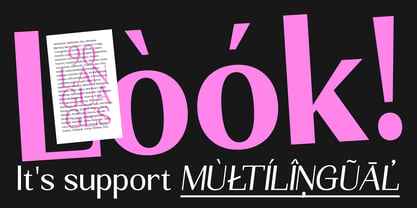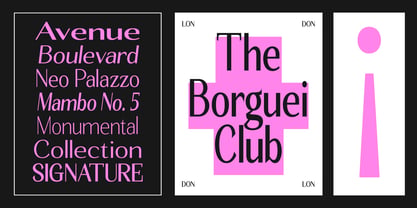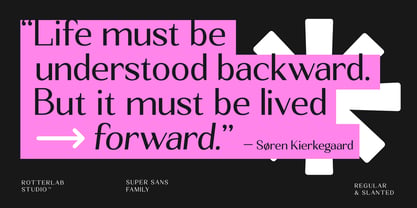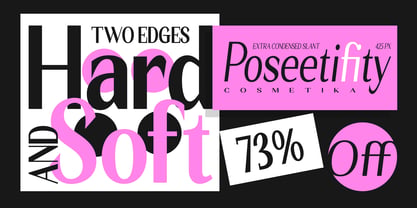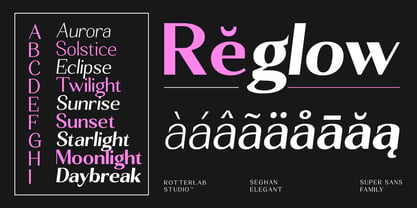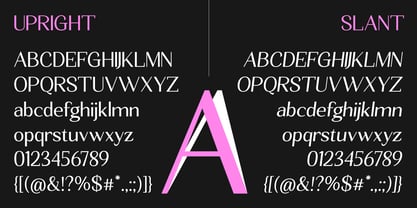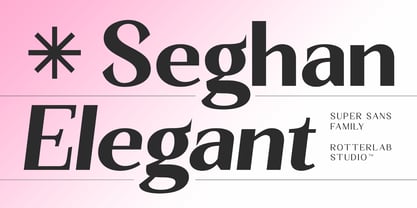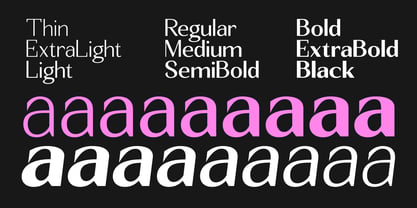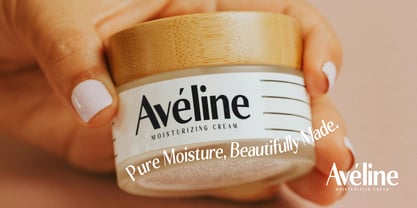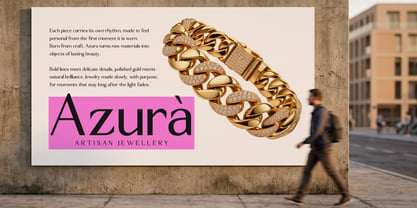
Seghan Elegant
The Seghan Elegant Font Family was designed by Sidiq Fahmi and published by Rotterlab Studio. Seghan Elegant contains 252 styles and family package options. More about this family
Seghan Elegant is a sophisticated and stylish serif font designed to bring a luxurious and distinctive touch to your creative projects. Featuring high-contrast strokes, graceful curves, and unique letterforms, this font combines classic elegance with a modern fashion-forward feel.
Perfect for logos, branding, fashion magazines, editorial designs, invitations, beauty products, packaging, posters, social media, and headlines. Its bold yet elegant appearance makes it highly versatile for both minimalist and statement designs.
Whether you are creating a premium brand identity, an elegant wedding invitation, or a striking editorial layout, Seghan Elegant adds a refined and memorable character to every design. It is an excellent choice for designers looking for a font that feels luxurious, artistic, modern, and timeless.